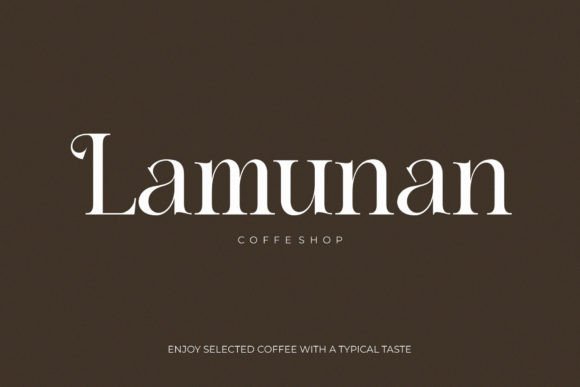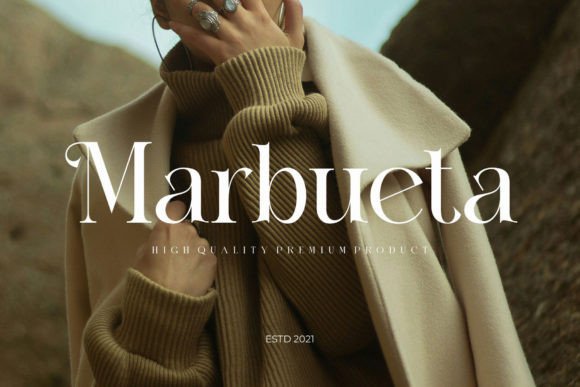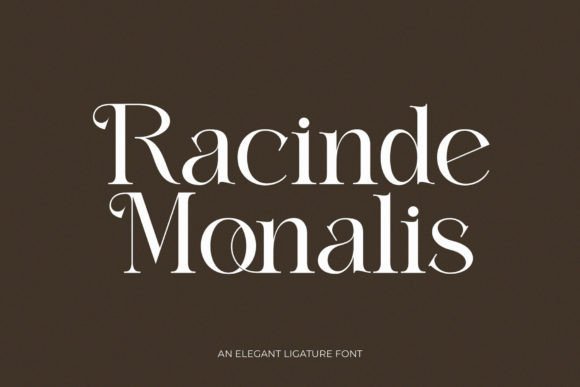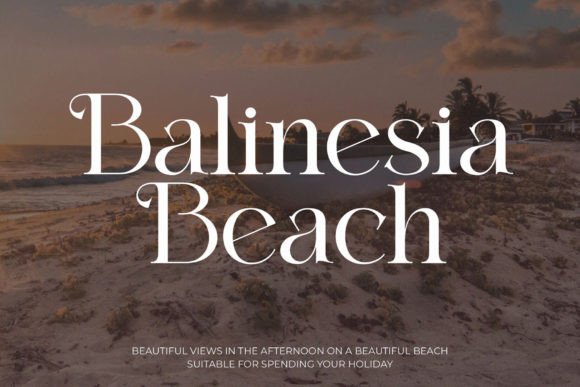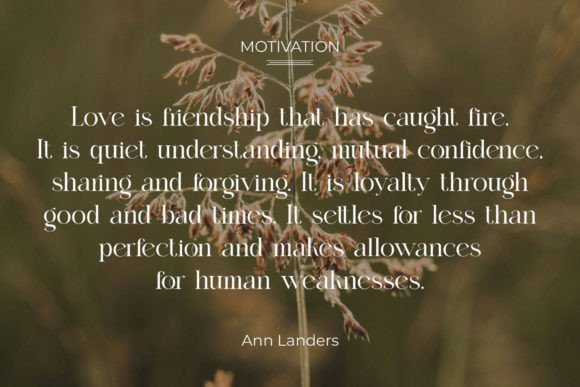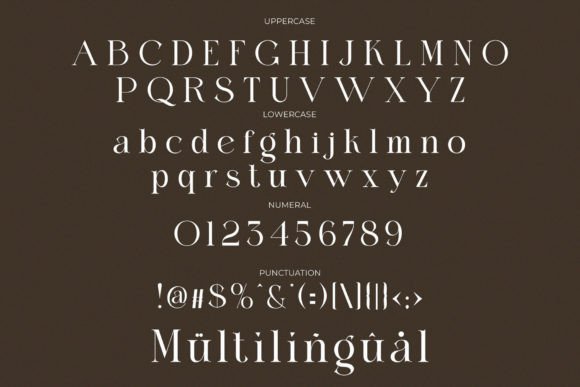
Gallina: The Modern Serif Typeface for Elegant Design
Are you a designer or crafter looking for a typeface that exudes elegance and sophistication? Look no further than Gallina, a modern serif typeface inspired by the famous minimalist logo. Perfect for a variety of design applications, Gallina is sure to elevate your work and leave a lasting impression.
The Inspiration Behind Gallina
Gallina’s design is rooted in the principles of minimalism, with clean lines, simple shapes, and a focus on negative space. The typeface draws inspiration from the iconic logo that has become synonymous with style and sophistication. By distilling the essence of this logo, Gallina’s creators have developed a typeface that is both timeless and contemporary.
Key Features of Gallina
So, what sets Gallina apart from other typefaces? Here are a few key features that make it an excellent choice for designers and crafters:
- Modern serif design: Gallina’s serif design is both classic and modern, making it perfect for a wide range of applications.
- Elegant lines: The typeface features elegant lines and curves, giving it a sophisticated and refined feel.
- High legibility: Gallina is designed to be highly legible, even at small sizes, making it perfect for body text and captions.
- Versatile: Gallina can be used in a variety of contexts, from digital designs to print materials.
Use Cases for Gallina
Gallina is an incredibly versatile typeface that can be used in a wide range of design applications. Here are a few ideas to get you started:
- Design templates: Use Gallina to create stunning design templates for social media, presentations, and more.
- Brochures and flyers: Gallina’s elegant design makes it perfect for brochures, flyers, and other print materials.
- Videos and motion graphics: Add a touch of sophistication to your videos and motion graphics with Gallina.
- Advertising and branding: Use Gallina to create eye-catching ads and branding materials that exude elegance and style.
- Logos and icons: Gallina’s unique design makes it perfect for creating custom logos and icons.
- Invitations and stationery: Add a touch of elegance to your invitations, stationery, and other paper goods with Gallina.
- Layout designs: Use Gallina to create beautiful layout designs for magazines, newspapers, and more.
- Elegant crafting: Gallina is perfect for crafters who want to add a touch of sophistication to their work.
- Beauty design: Use Gallina to create stunning beauty designs, from makeup tutorials to skincare branding.
Why Choose Gallina?
With so many typefaces to choose from, why should you choose Gallina? Here are a few reasons:
- Unique design: Gallina’s unique design sets it apart from other typefaces, making it perfect for designers and crafters who want to stand out.
- Elegant feel: Gallina’s elegant design gives it a sophisticated feel that’s perfect for high-end designs.
- High-quality: Gallina is a high-quality typeface that’s designed to deliver exceptional results.
In conclusion, Gallina is a modern serif typeface that’s perfect for designers and crafters who want to add a touch of elegance and sophistication to their work. With its unique design, elegant lines, and high legibility, Gallina is sure to elevate your designs and leave a lasting impression. Whether you’re working on a design template, brochure, video, or branding materials, Gallina is an excellent choice.